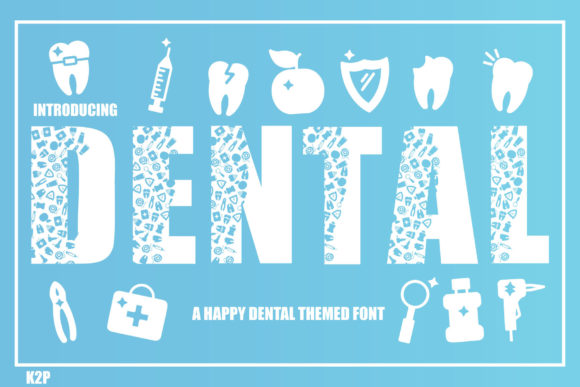
Embark on an enchanting typographic voyage with Dental Font, a decorative masterpiece that oozes character and charm. This thick-lettered font, crafted by the visionary KtwoP, is a true spectacle, designed to transform your creative visions into striking realities.
With Dental Font, your designs will take on a distinctive personality, exuding both elegance and playfulness. Its bold strokes and intricate details create an eye-catching aesthetic that captivates and enchants. Unleash your imagination and explore the endless possibilities that await you with this typographic gem.
Dive into a world of endless creativity, where Dental Font's versatility shines. Whether you're crafting captivating dentist appointment reminders, designing eye-catching magazine covers, or creating personalized birthday greetings, this font is your perfect companion. Its adaptability knows no bounds, allowing you to effortlessly elevate any project with a touch of sophistication and whimsy.
Step into a realm of effortless design with Dental Font, where PUA encoding liberates your creativity. Access a treasure trove of glyphs and swashes with unparalleled ease, unlocking a world of typographic possibilities. Unleash your inner artist and let your designs flourish with individuality and flair.
With Dental Font, the ordinary becomes extraordinary. Transform mundane text into captivating headlines, breathe life into social media posts, and add a touch of magic to invitations and flyers. This font is your key to unlocking a world of visual storytelling, where every character holds the power to captivate and inspire.
Delve into the enchanting world of Dental Font and discover the boundless potential that awaits you. Its captivating charm and versatility will ignite your creativity and transport your designs to new heights. Embrace the beauty of typography and let Dental Font guide you on a journey of self-expression and limitless possibilities.
Dental Font: The Key to Unlocking Typographic Brilliance.